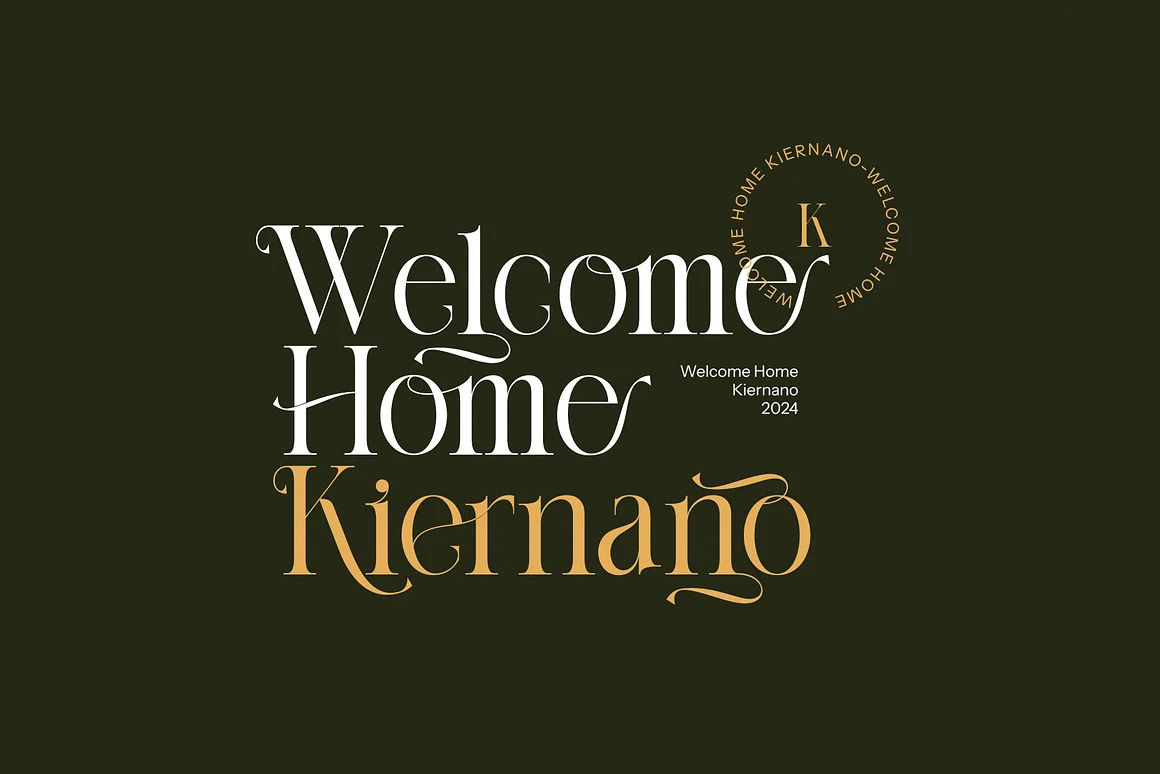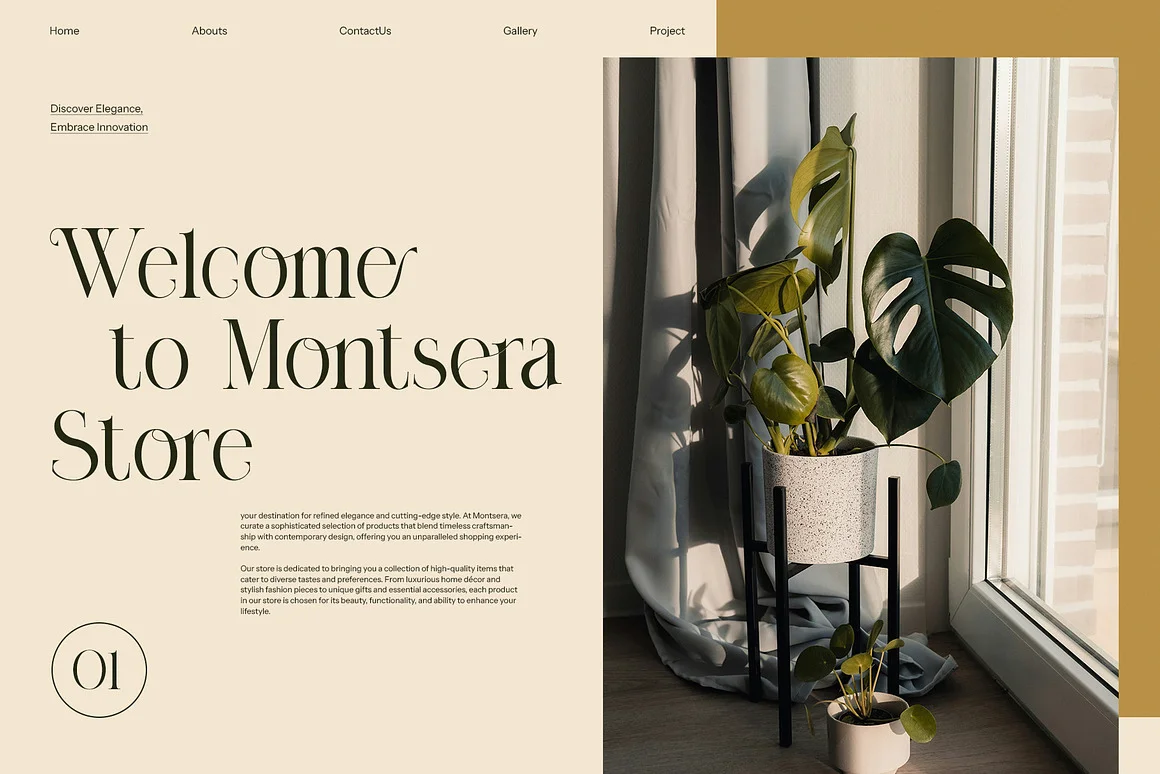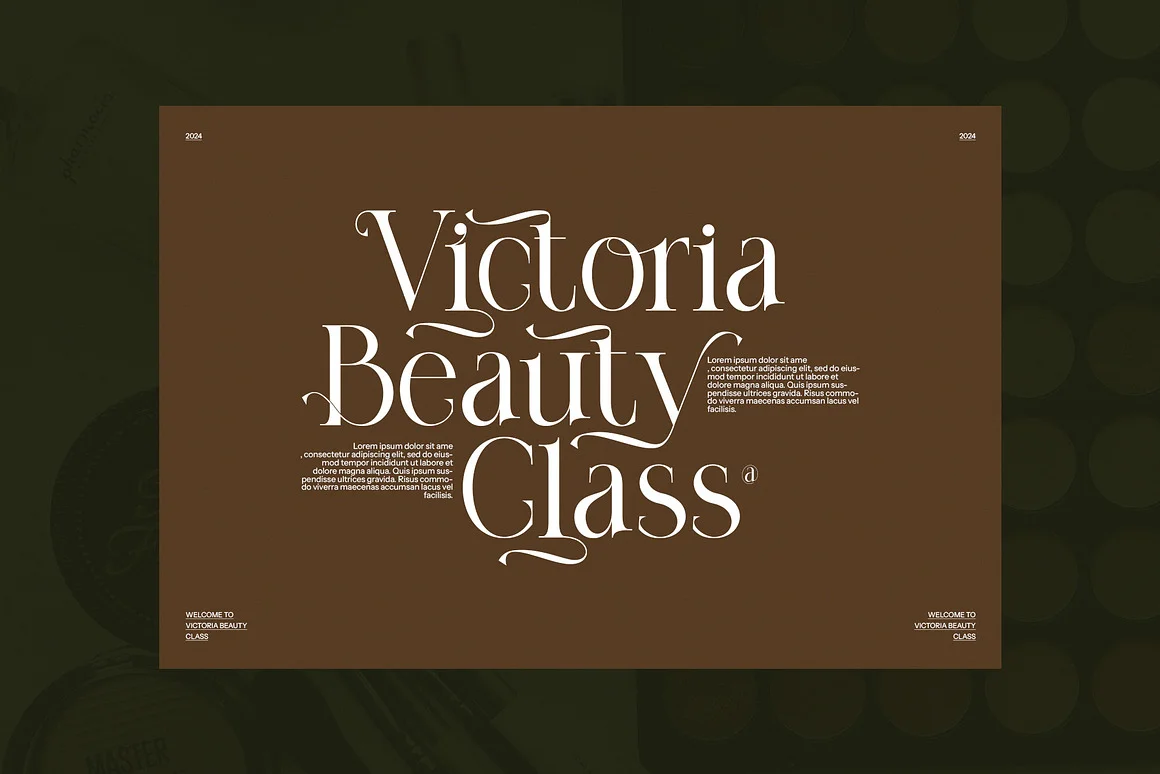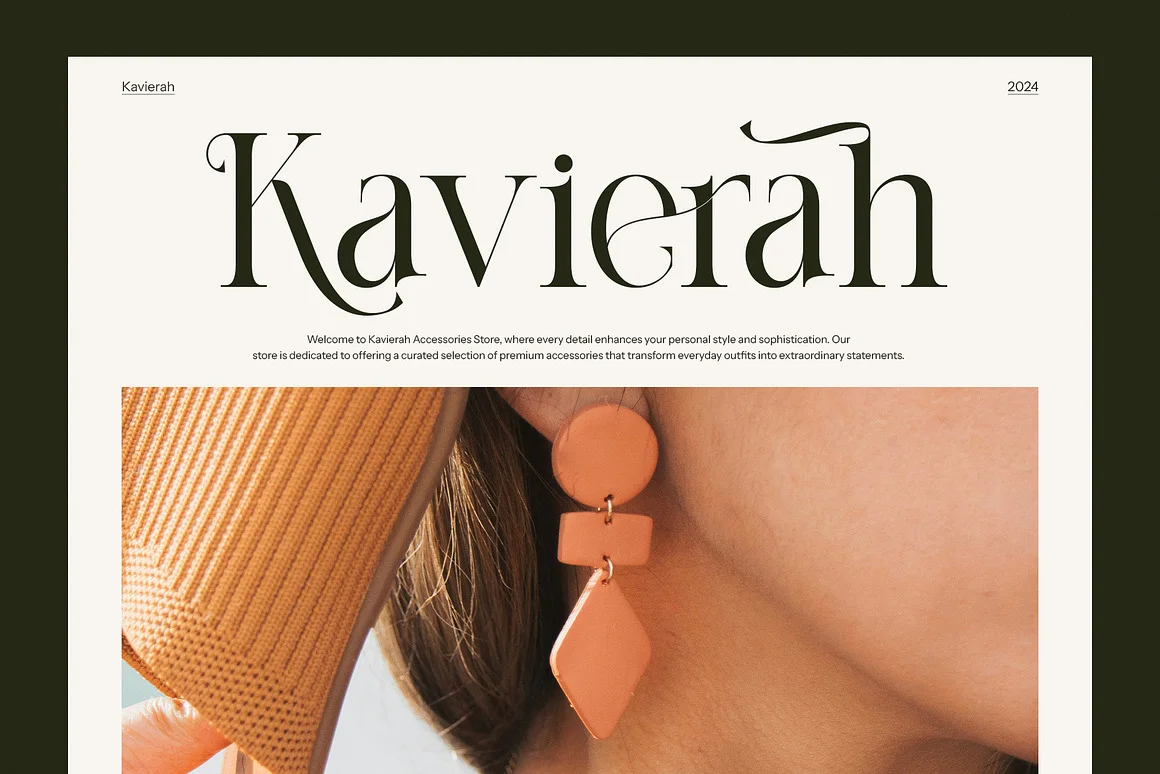
Kongli Elegant Serif Font
Kongli Elegant Serif is a carefully designed typeface that brings a refined aesthetic to any creative project.
Its proportions suit a wide range of uses: website headers, printed flyers, restaurant menus, annual reports, and product packaging.